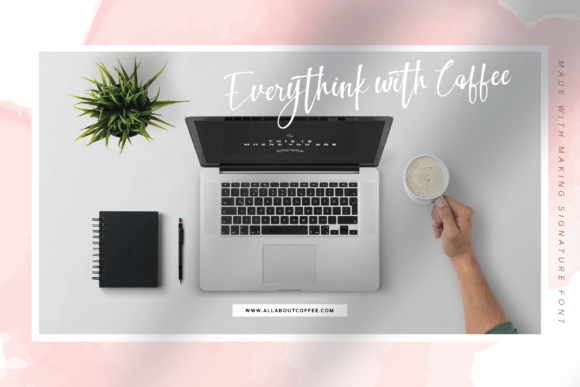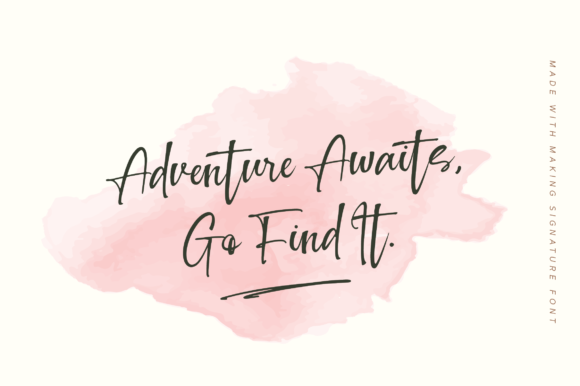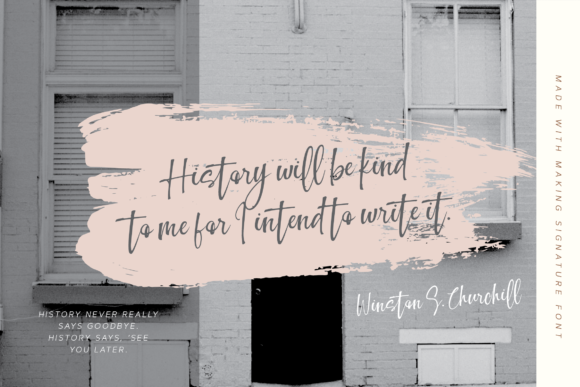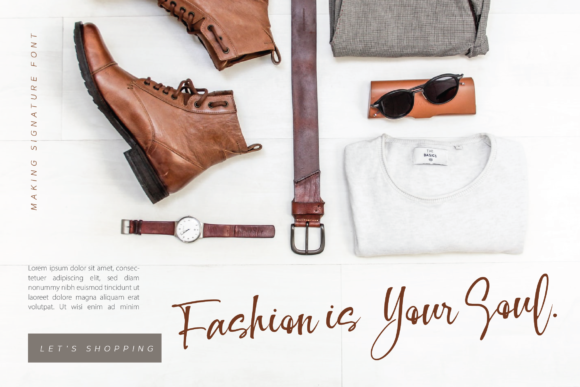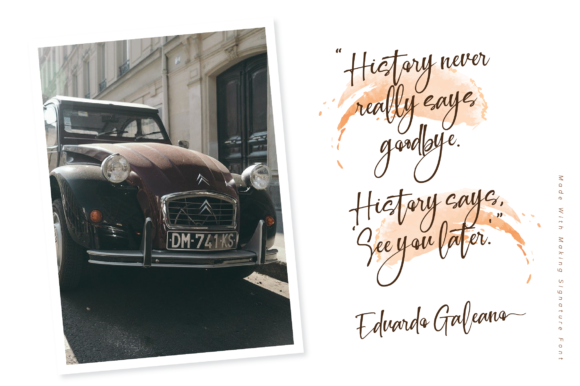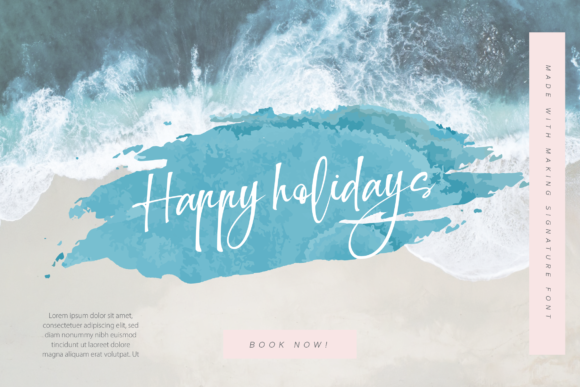
Introduction to Making Signature Font
Have you ever stared at a blank page, trying to decide on the perfect font for your design project? The blank canvas can be intimidating, but it’s also an opportunity to unleash your creativity. I still remember the moment I discovered the Making Signature Font – it was love at first sight! The elegant, handwritten style instantly captured my attention, and I knew I had to learn more.
As a designer, you understand the importance of selecting the right font for your project. A high-quality font can elevate your design from good to great, making it stand out in a crowded market. Making Signature Font is a stunning addition to any design resource, perfect for designers who want to add a touch of luxury to their creative projects. With its transparent background and free download, this font is a must-have for anyone looking to take their designs to the next level.
In this article, we’ll delve into the world of Making Signature Font, exploring its features and benefits. Whether you’re a seasoned designer or just starting out, you’ll learn how to make the most of this beautiful, light handwritten font.
Making Signature Font
- High-quality, customizable font design suitable for creative projects, allowing users to add a personal touch.
- Transparent background, making it easy to layer over other design elements.
- Unique characteristics, such as ligatures and swashes, add a touch of personality to the font.
Honest Review: Making Signature Font
I recently came across Making Signature Font, a design resource that caught my attention with its promise of creating a unique and personalized font. As a designer, I was excited to dive in and see if it lived up to its claims.
One of the standout features of Making Signature Font is its user-friendly interface. The step-by-step process makes it easy to navigate and customize your font, even for those without extensive design experience.
Overall, I’m impressed with Making Signature Font and its potential to elevate creative projects. While it may have some limitations, its high-quality results and user-friendly interface make it a solid choice for designers and non-designers alike.
Making Signature Font
Making a signature font is a valuable design resource that can elevate your creative projects. With a custom signature font, you can add a personal touch to your designs and make them stand out.